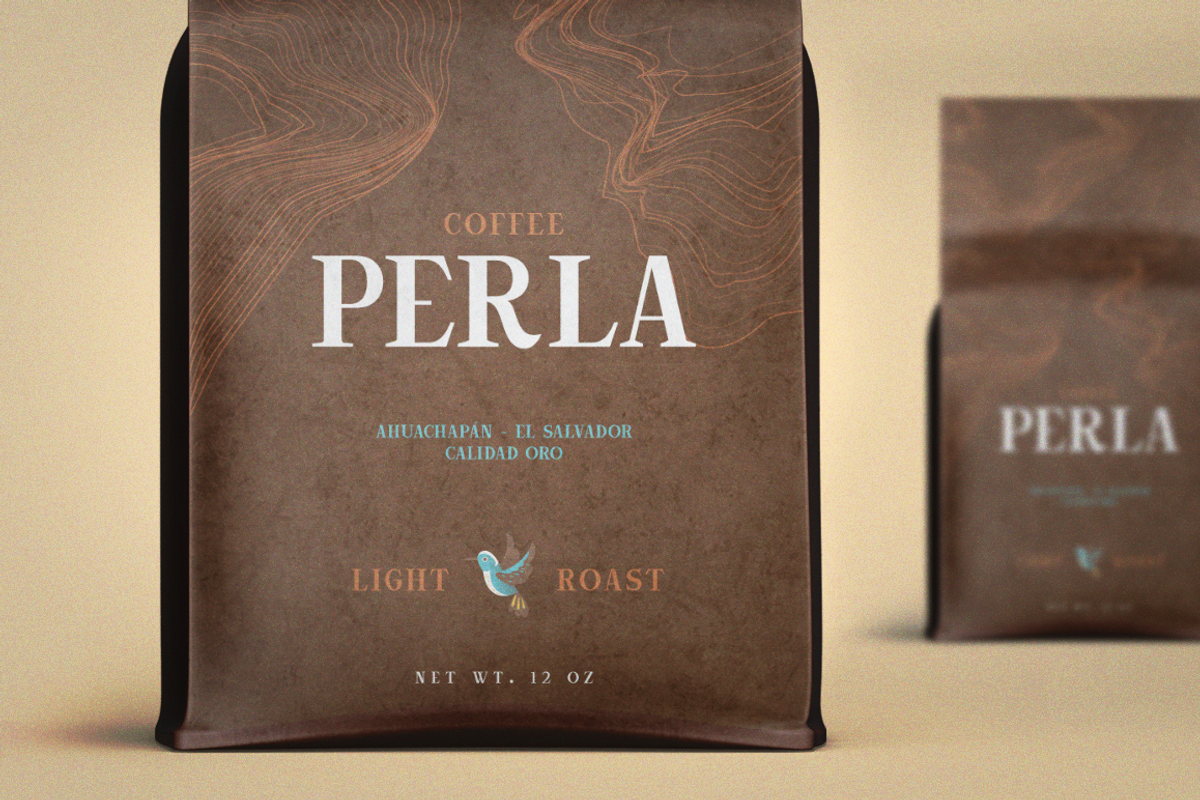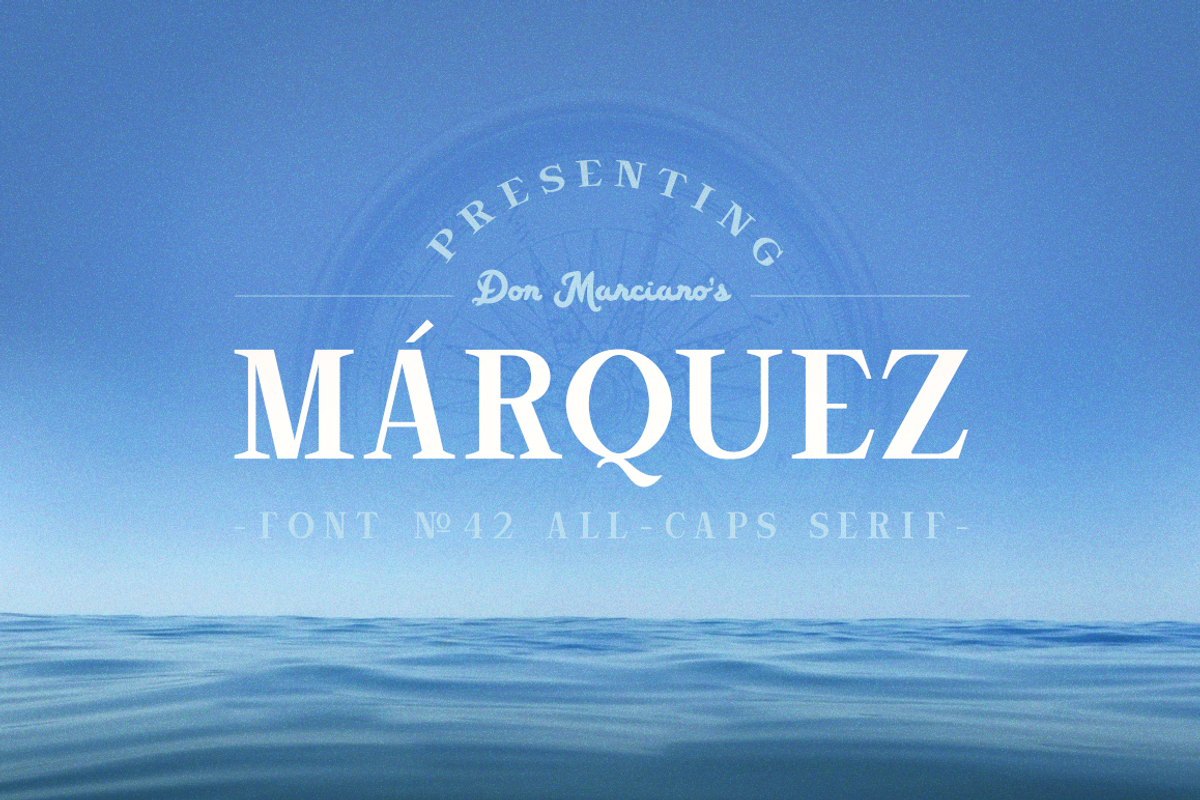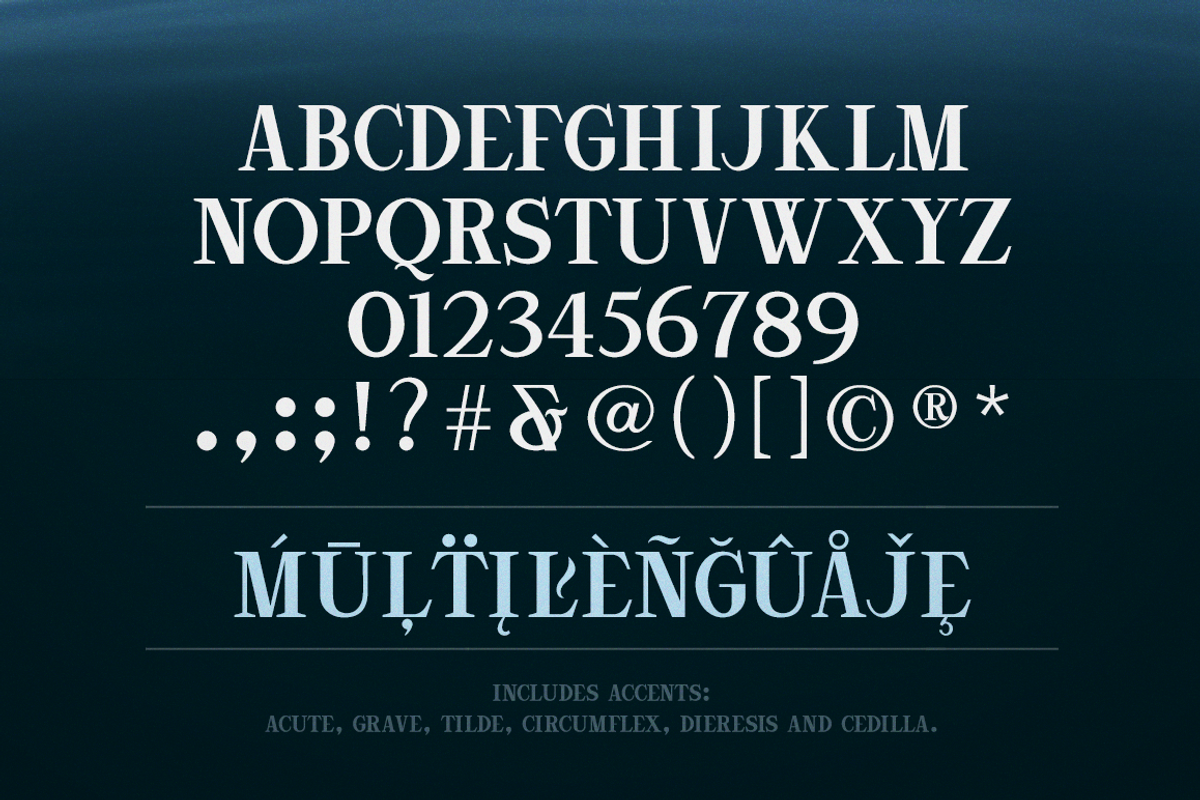
Marquez Vintage
Marquez is a strong vintage serif display font, design as a baseline for a personalized broadcasting name brand and companion merchandise with a sea adventure theme flavor; when it’s time to create memorable tales of treasure hunting with pirates and sea monsters Marquez got you cover.